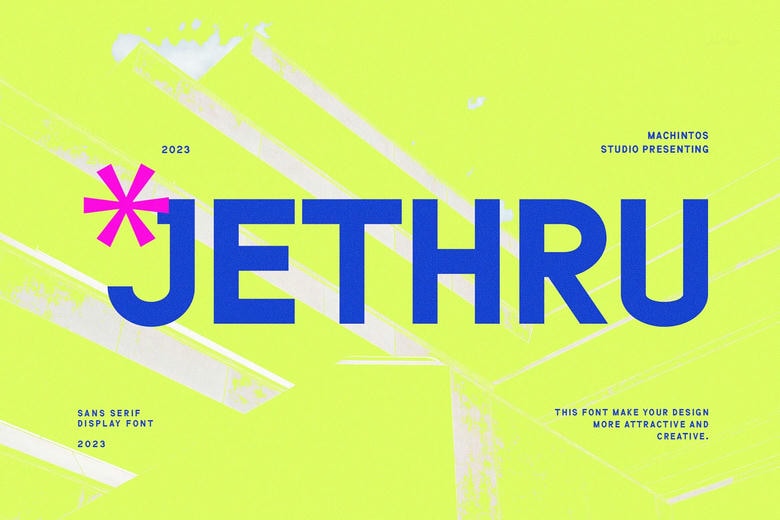
Jethru Font
Jethru is a beautiful and old-style sans serif font. The finest option is using it to apply eye catching logos, branding and quotes. Each letter is beautiful and original and will make your design breathing!
Jethru Sans Serif Font